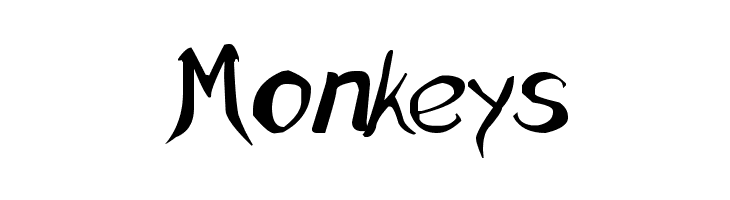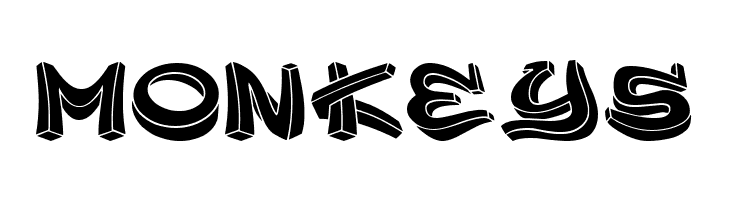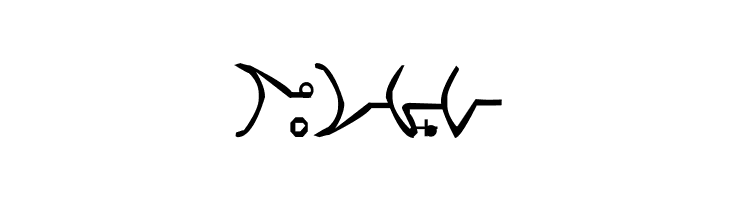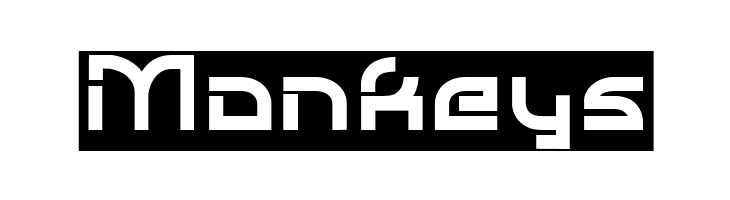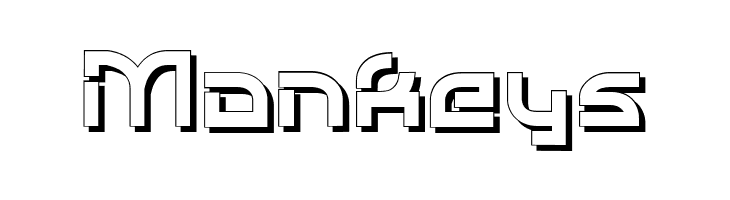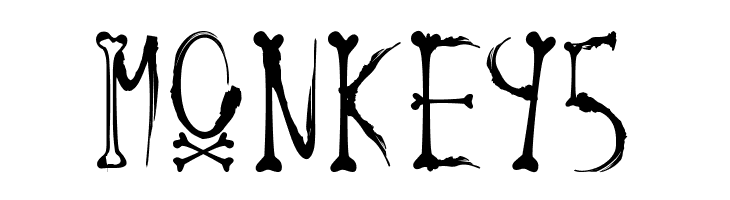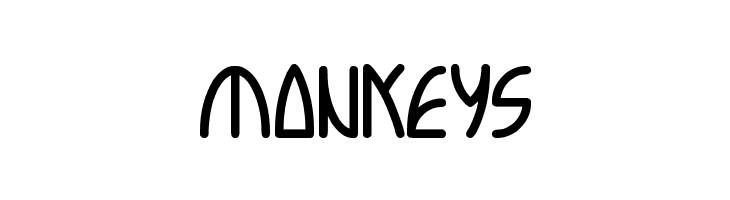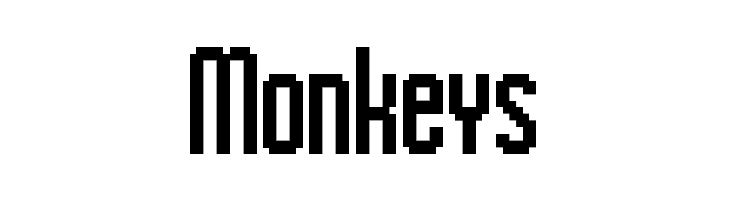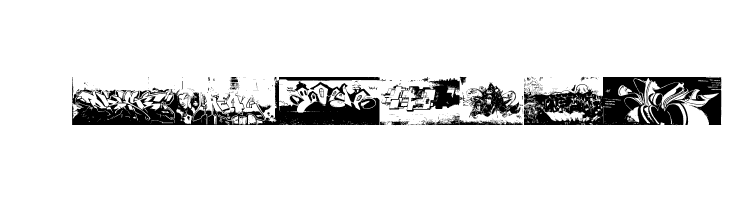
• Individigital Shaded
( Fonts by Roland Huse - rolandhuse.com )
A bold, geometric font with a shaded, three-dimensional effect.
• Individigital Subtitle
( Fonts by Roland Huse - rolandhuse.com )
A bold, futuristic geometric font with angular letterforms.
• inet2
A bold, dynamic script font with expressive, cursive letterforms.
• inkandbones
( Fonts by MeCreativa )
A bone-inspired, eerie font with sharp, elongated strokes.
• Inky Thin Pixels
A pixelated, blocky font with a retro digital aesthetic.
• inner city
( Fonts by Mike Wolf )
A bold, urban font with a 3D graffiti-inspired style.
• Inspired
( Fonts by www.omniglot.com )
A futuristic and abstract font with geometric shapes and lines.
• Instant Graffitication
( Mathew Taft - www.siteskins.net/ )
A bold, graffiti-inspired font with dynamic, expressive strokes and intricate designs.
• Interes
• interplanetary
A futuristic, geometric font with bold, rounded letterforms.